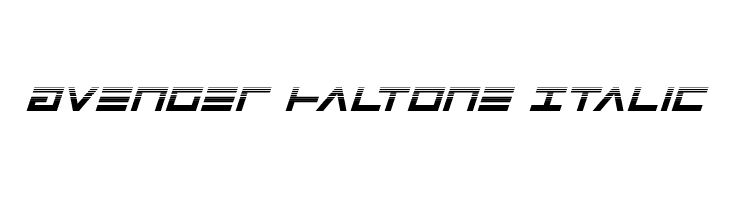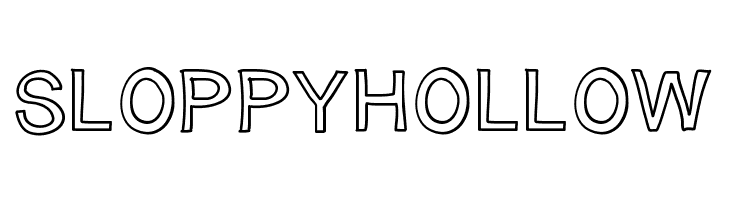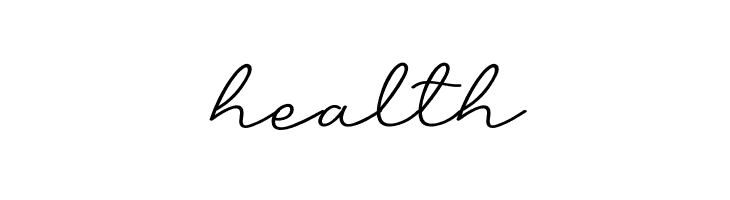
A bold, angular font with a modern, dynamic style.
A playful, casual handwritten font with rounded edges and consistent stroke width.
A playful, cursive font with medium contrast and flowing, connected letters.
A bold, geometric, and futuristic font with a condensed style.
A bold, italicized font with smooth curves and a modern, condensed style.
A thin, italicized sans-serif font with a modern and elegant style.
A playful, cartoonish font with bold, exaggerated curves and loops.
A modern, geometric font with bold lines and rounded edges, perfect for futuristic designs.